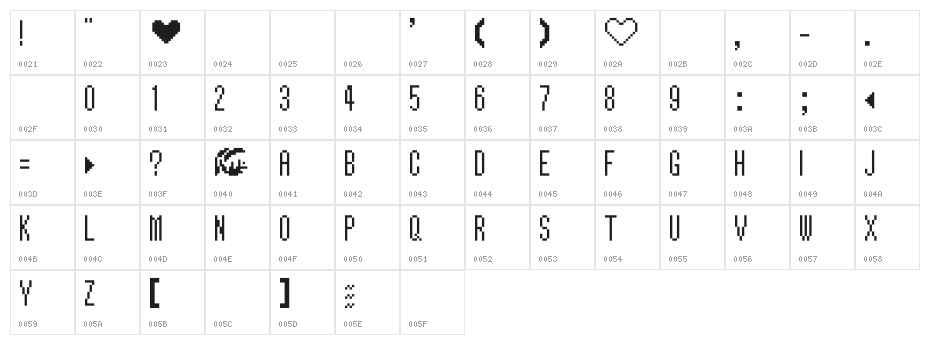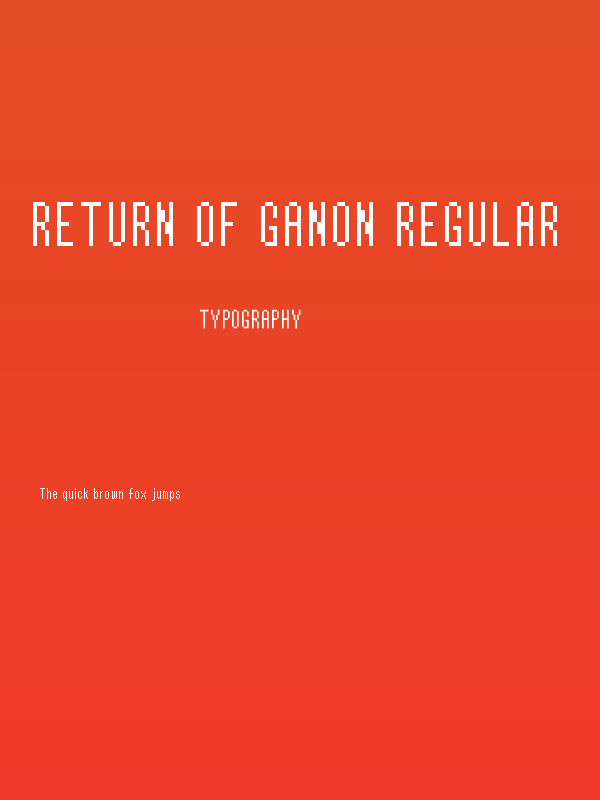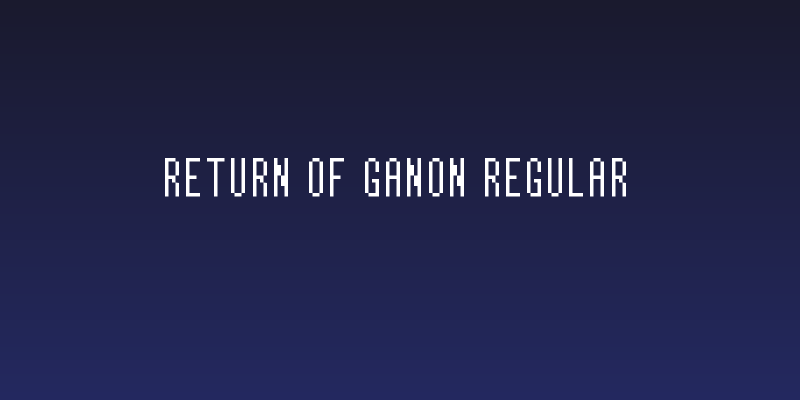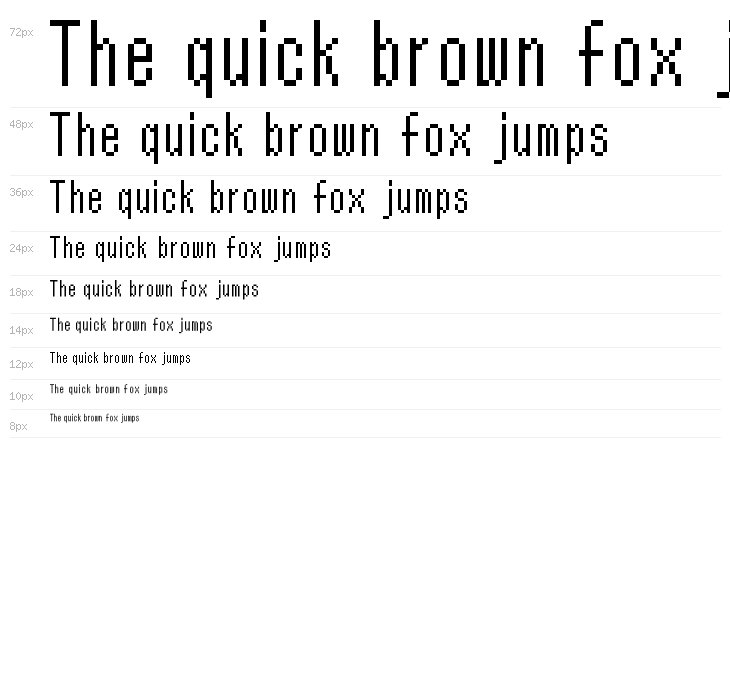
Return of Ganon Regular Font
This font features a pixelated, retro style reminiscent of early video game graphics. The characters are composed of small, square blocks that give it a distinct, digital appearance. Uppercase and lowercase letters maintain a consistent height, contributing to a uniform look. The numerals and special characters follow the same pixelated design, ensuring cohesion across all elements. This font is ideal for projects that aim to evoke nostalgia or a vintage gaming aesthetic. Its blocky structure makes it highly legible at various sizes, though it is best suited for larger displays where its unique style can be fully appreciated.
| Proposed Projects | Ideal for retro video game designs, nostalgic branding, digital art, and themed event posters. |